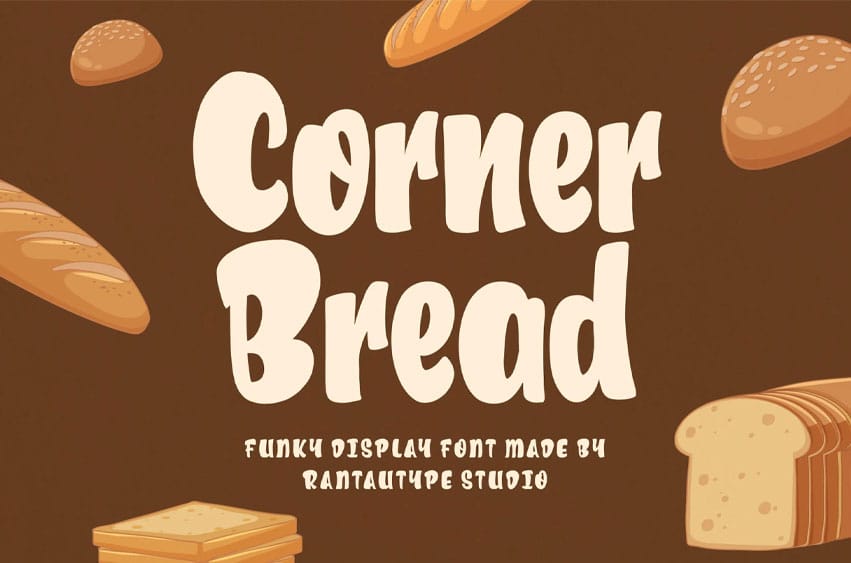
Corner Bread Font is a funky display font featuring a bold character style. It is an excellent choice for various creative projects, including chic lifestyle designs, logotypes, advertisements, watermarks on photography, stationery, branding projects, magazine displays, invitations, corporate branding, product designs, labels, and many other projects that require a modern touch.